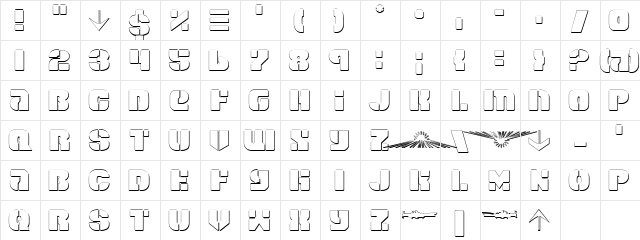
Complete Space Cruiser Shadow glyph index. Displaying only characters natively supported by Space Cruiser Shadow font.
Space Cruiser is built around its visual character rather than neutral utility - its distinctive forms are designed to make an impression at display sizes.
Font Pairing: Pair with a clean neutral sans-serif for body copy to let Space Cruiser's character lead without overwhelming the composition.
Pro Tip: Use Space Cruiser exclusively at display sizes - it was designed to be seen, not read at length. Let a neutral companion handle body copy.